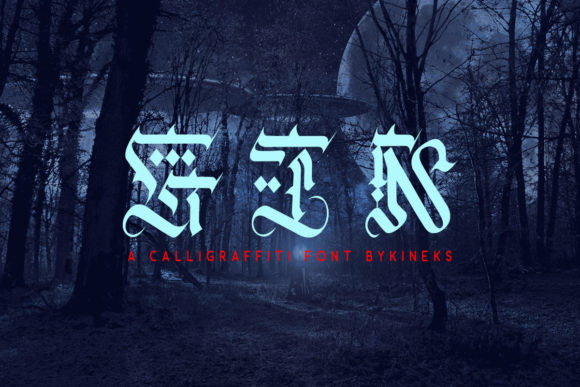
Brace yourself for a typographic odyssey with Gin Font, a revolutionary decorative font that shatters the boundaries of conventional design. This brainchild of kineks is not just a font; it's an artistic saga waiting to be unveiled.
Gin Font is a harmonious fusion of calligraphy, graffiti, and typography, taking you on a visual journey unlike any other. Inspired by the captivating street art known as calligraffiti, this font exudes an aura of abstraction and elegance, making it the perfect companion for those who dare to venture beyond the mainstream.
With Gin Font, you'll discover a symphony of strokes that dance and intertwine, creating a mesmerizing display of creativity. Its bold and unconventional style is guaranteed to leave a lasting impression, whether you're designing logos, posters, flyers, or social media graphics.
Unleash your inner rebel and let Gin Font be your weapon of choice. This font is not for the faint-hearted; it's for those who embrace the unconventional, who thrive on pushing boundaries and making a statement. With Gin Font, you'll have the power to captivate, inspire, and ignite imaginations.